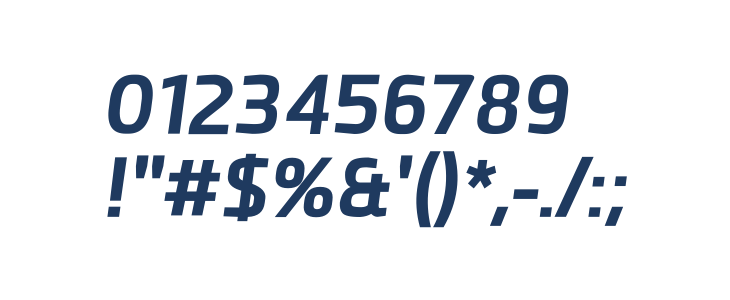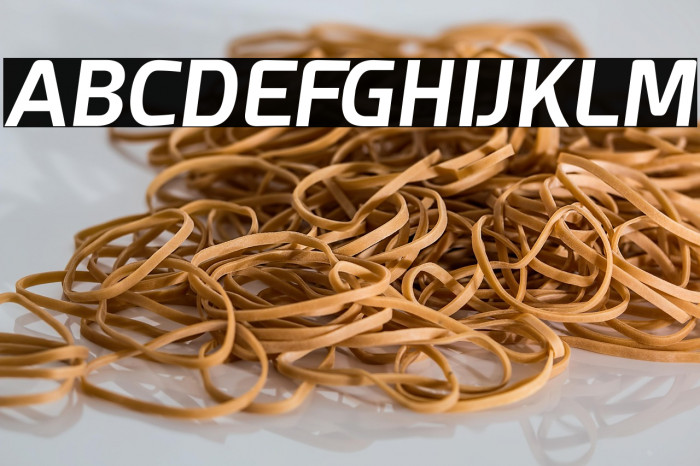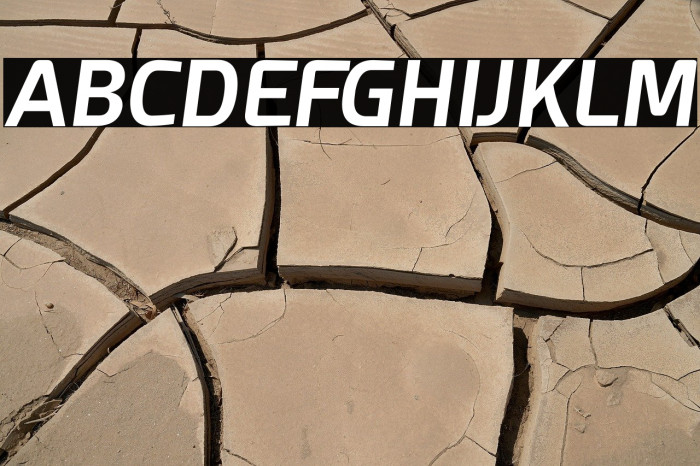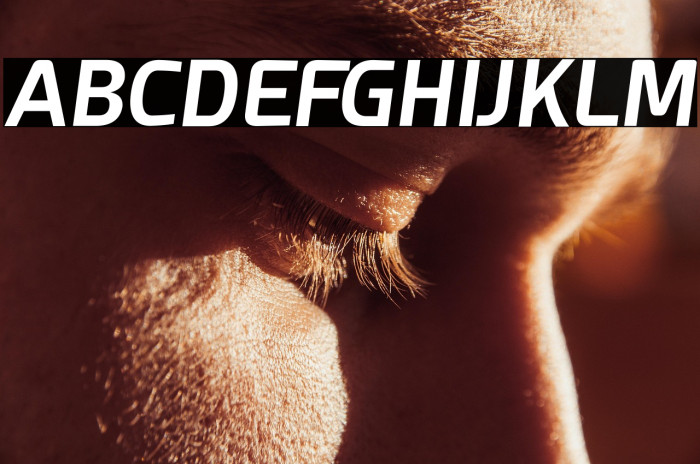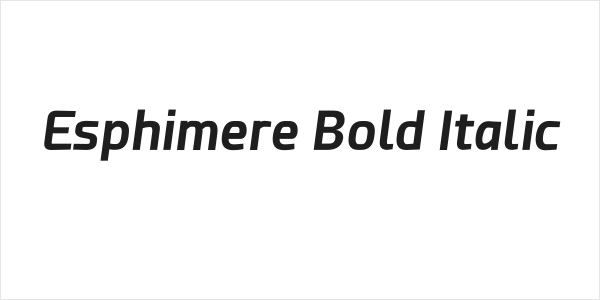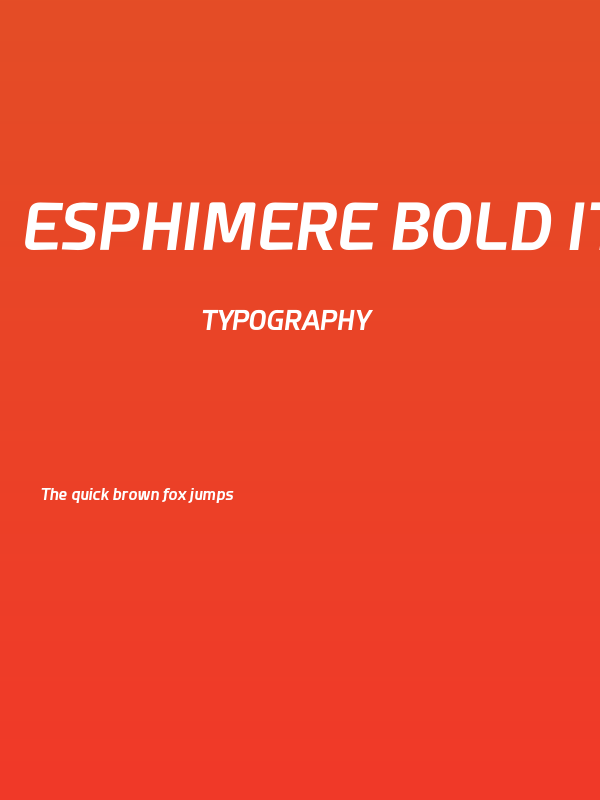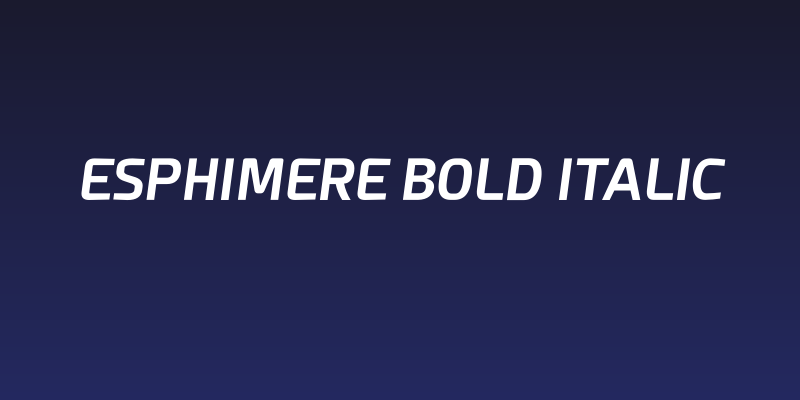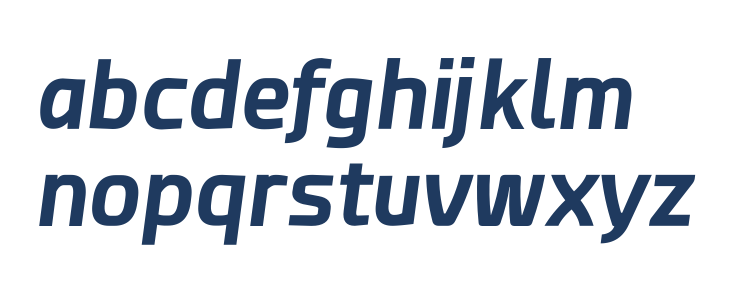
Esphimere Bold Italic Font
Esphimere Bold Italic Description
This typeface exhibits a modern and dynamic style with a bold and italicized appearance. The characters are slightly slanted, giving a sense of motion and energy. The strokes are consistent in thickness, contributing to a clean and uniform look. The uppercase letters are tall and commanding, while the lowercase letters maintain a balanced and approachable feel. The numerals are clear and easy to read, making them suitable for various applications. Special characters are well-defined, ensuring versatility in design projects. Overall, the font conveys a contemporary and professional aesthetic, ideal for making a bold statement.
| Use Case | Headlines, Logos, Advertising |
| Proposed Projects | Ideal for branding, advertising, headlines, and digital media where a strong and modern impression is desired. |